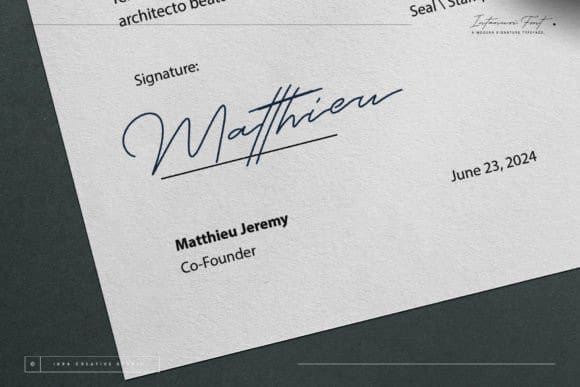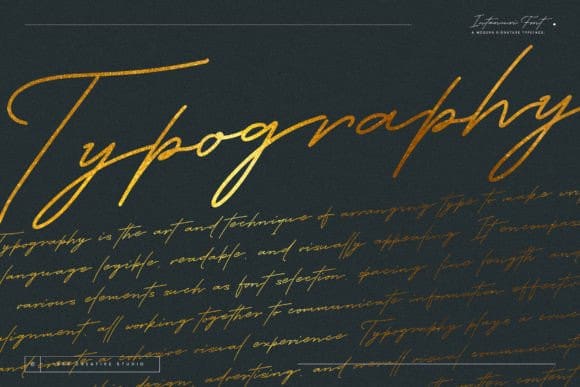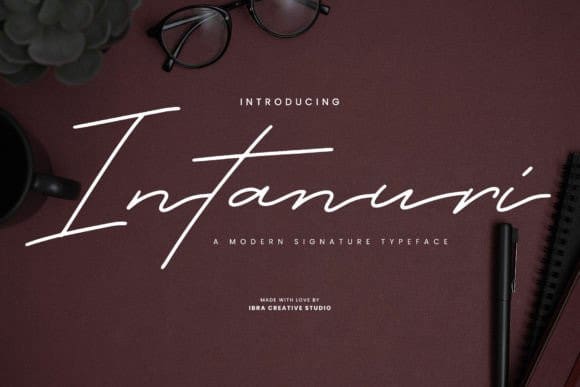
Intanuri Script Font
Intanuri Script Font a modern signature typeface, epitomizes contemporary elegance with its sleek lines and fluid strokes. Each letter is meticulously crafted to emulate the sophistication of a handwritten signature, blending personalized flair with a sleek, modern aesthetic. The effortless curves and balanced proportions of Intanuri create a distinctive rhythm, allowing it to seamlessly adapt to a myriad of design applications, from branding to digital media.